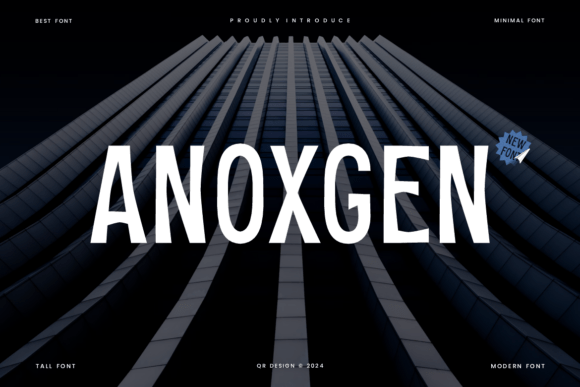
The Designer’s Dream: Anoxgen Font
I’ll never forget the time I was working on a project for a bold and edgy client. I had spent hours browsing through font libraries, but nothing seemed quite right. That was until I stumbled upon Anoxgen, a bold and assertive sans serif font that instantly caught my attention. It was like a breath of fresh air – I knew immediately that it was the perfect fit for my project. In this article, I’ll share my experience with Anoxgen, its features, and how to make the most of it in your designs.
An Honest Review of Anoxgen
What I Love About Anoxgen ✨
- 💥 **Bold and Assertive**: Anoxgen is a font that demands attention. Its bold and assertive personality makes it perfect for headings, titles, and any design that requires a strong statement.
- ✅ **Versatile**: Despite its bold personality, Anoxgen is surprisingly versatile. It can be used for a wide range of projects, from modern and edgy to minimalist and clean.
- 🌈 **Highly Legible**: The font’s clean lines and simple shapes make it highly legible, even at small sizes.
- 🎨 **OpenType Features**: Anoxgen comes with a range of OpenType features, including stylistic alternates, ligatures, and glyphs, giving you plenty of creative options.
- ⚠️ **Limited Serif Options**: As a sans serif font, Anoxgen may not be the best choice for designs that require a traditional serif look.
- 🤔 **Some Characters May Be Too Bold**: A few characters, like the lowercase “l” and “i”, can be a bit too bold and may not be suitable for body text.
The Story Behind Anoxgen
Anoxgen was designed by a team of typographers who wanted to create a font that would make a bold statement. Inspired by modern sans serif fonts, they crafted Anoxgen to be a versatile and highly legible font that’s perfect for a wide range of designs. Whether you’re a designer, crafter, or creative hobbyist, Anoxgen is sure to become a valuable addition to your font library.
Q: What is Anoxgen font?
A: Anoxgen is a bold and assertive sans serif font that’s perfect for headings, titles, and any design that requires a strong statement.
Q: Is Anoxgen suitable for body text?
A: While Anoxgen is highly legible, it may not be the best choice for body text due to its bold personality. However, it can be used for short paragraphs or captions.
Q: Does Anoxgen come with OpenType features?
A: Yes, Anoxgen comes with a range of OpenType features, including stylistic alternates, ligatures, and glyphs, giving you plenty of creative options.